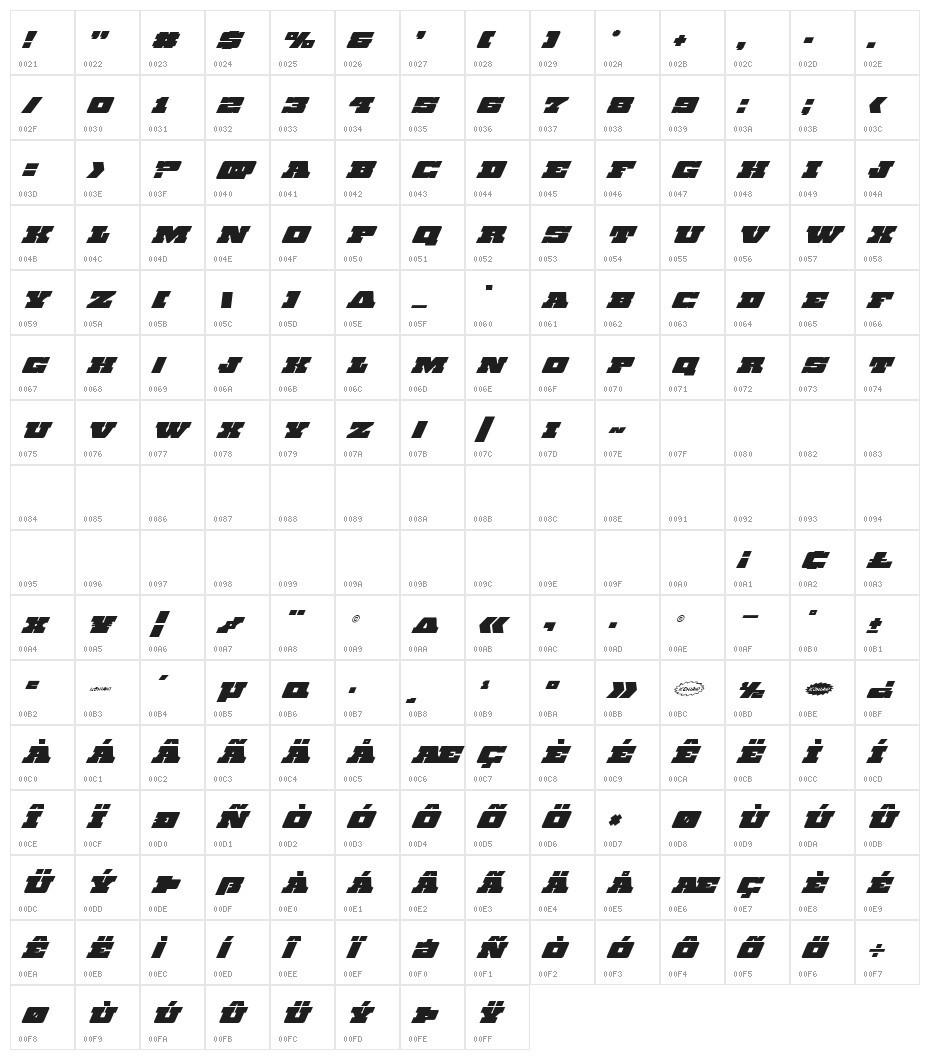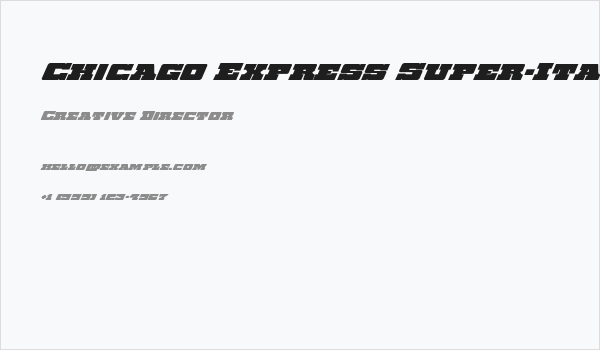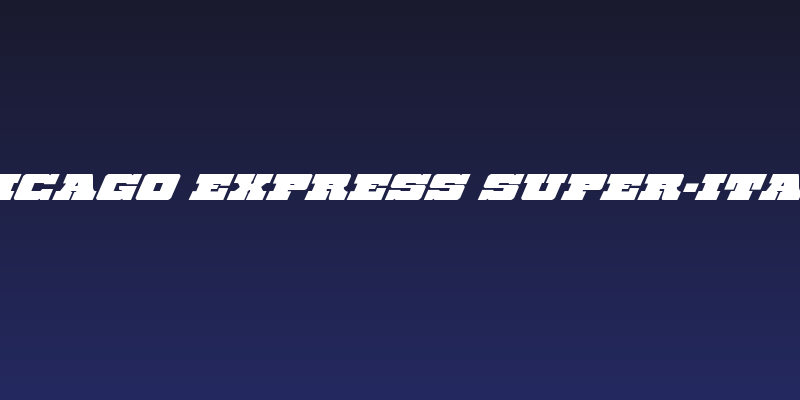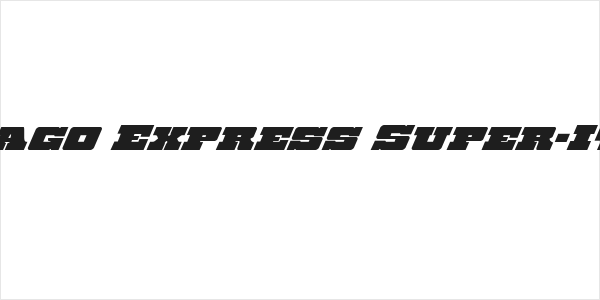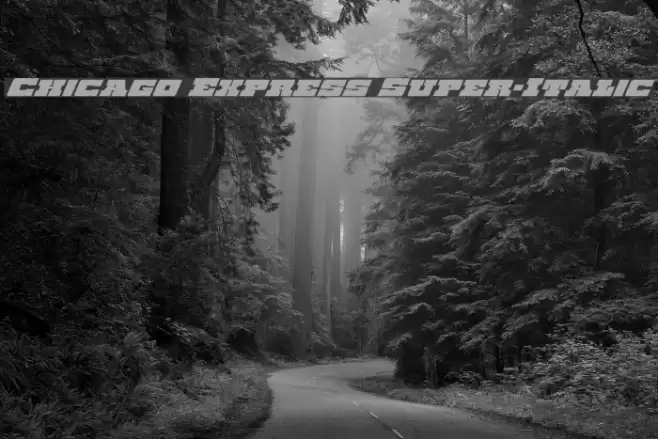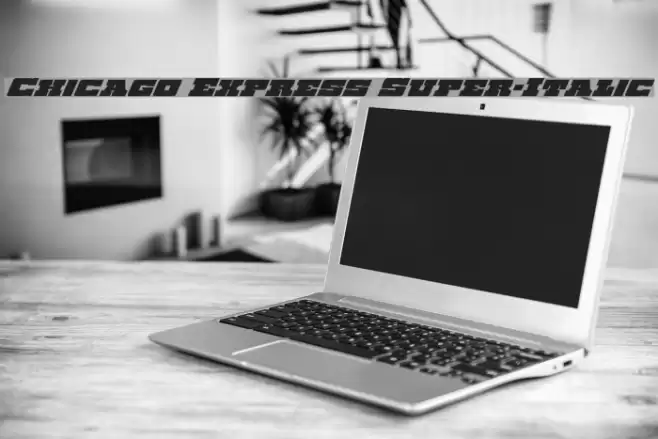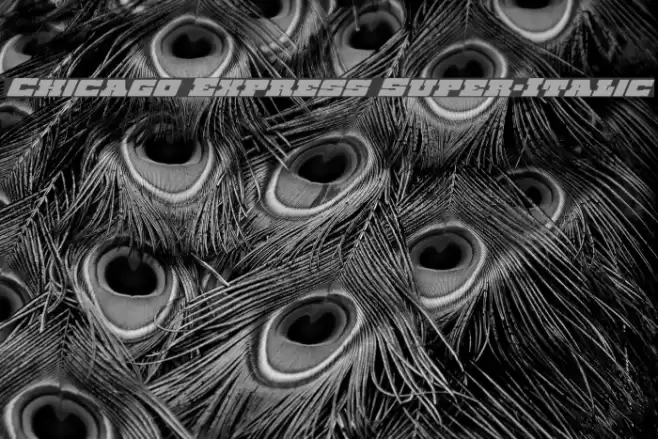
Chicago Express Super-Italic Font
This font features a bold and dynamic style with a strong italic slant, giving it a sense of speed and motion. The characters are blocky and robust, with sharp angles and a slightly condensed form. The uppercase and lowercase letters maintain a consistent height, enhancing readability while preserving the font's unique aesthetic. The numbers and special characters follow the same design principles, ensuring uniformity across all glyphs. This font's bold presence makes it ideal for impactful designs.